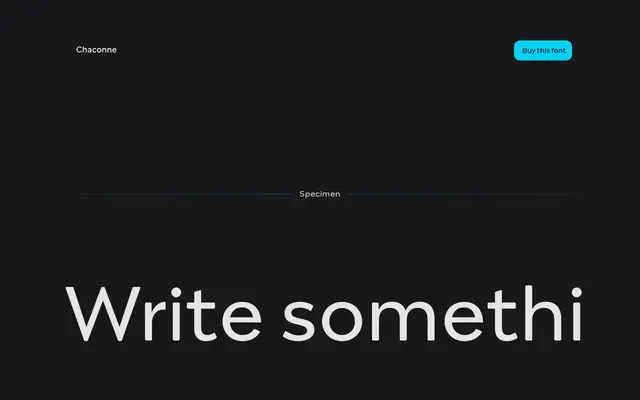
Chaconne
Capitalics · Mateusz Machalski
A Renaissance-inflected serif drawn from Goudy Old Style and Excelsior, built without grids to preserve an organic, hand-guided rhythm across five weights.
Designed by Mateusz Machalski at Capitalics, Chaconne takes Goudy Old Style and Excelsior as its classical starting points, then reinterprets them through a process deliberately free of grids or modular construction. The result is a ten-style family whose softness and subtle variation feel more observed than engineered. Each weight is accompanied by an organic italic, and the family is suited to long-form reading where warmth and quiet expressiveness matter more than neutrality.
Chaconne draws directly from Excelsior and Goudy Old Style, placing it in the humanist/Renaissance serif tradition. Its organic construction, free of grids or modules, reinforces a warm, pre-rational sensibility.